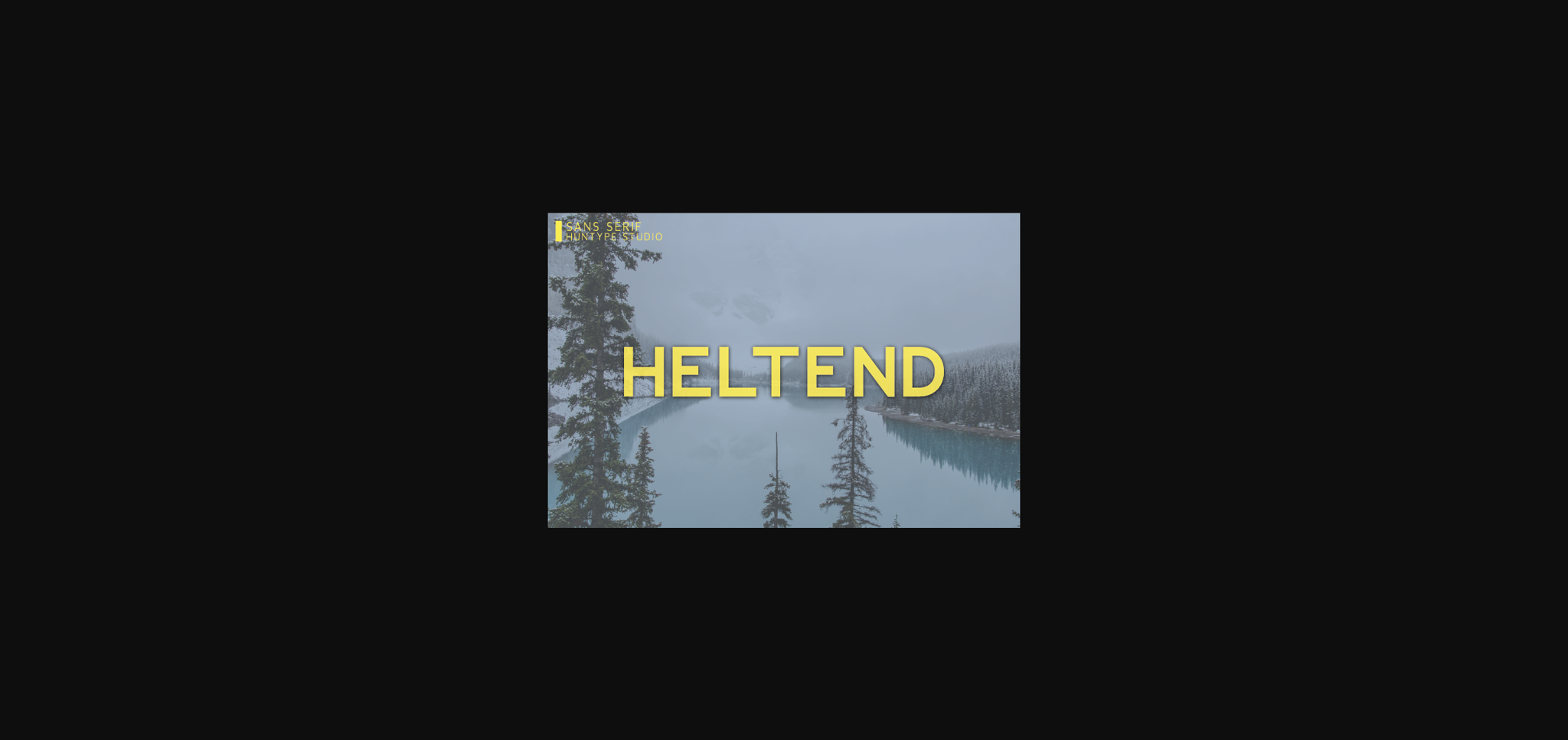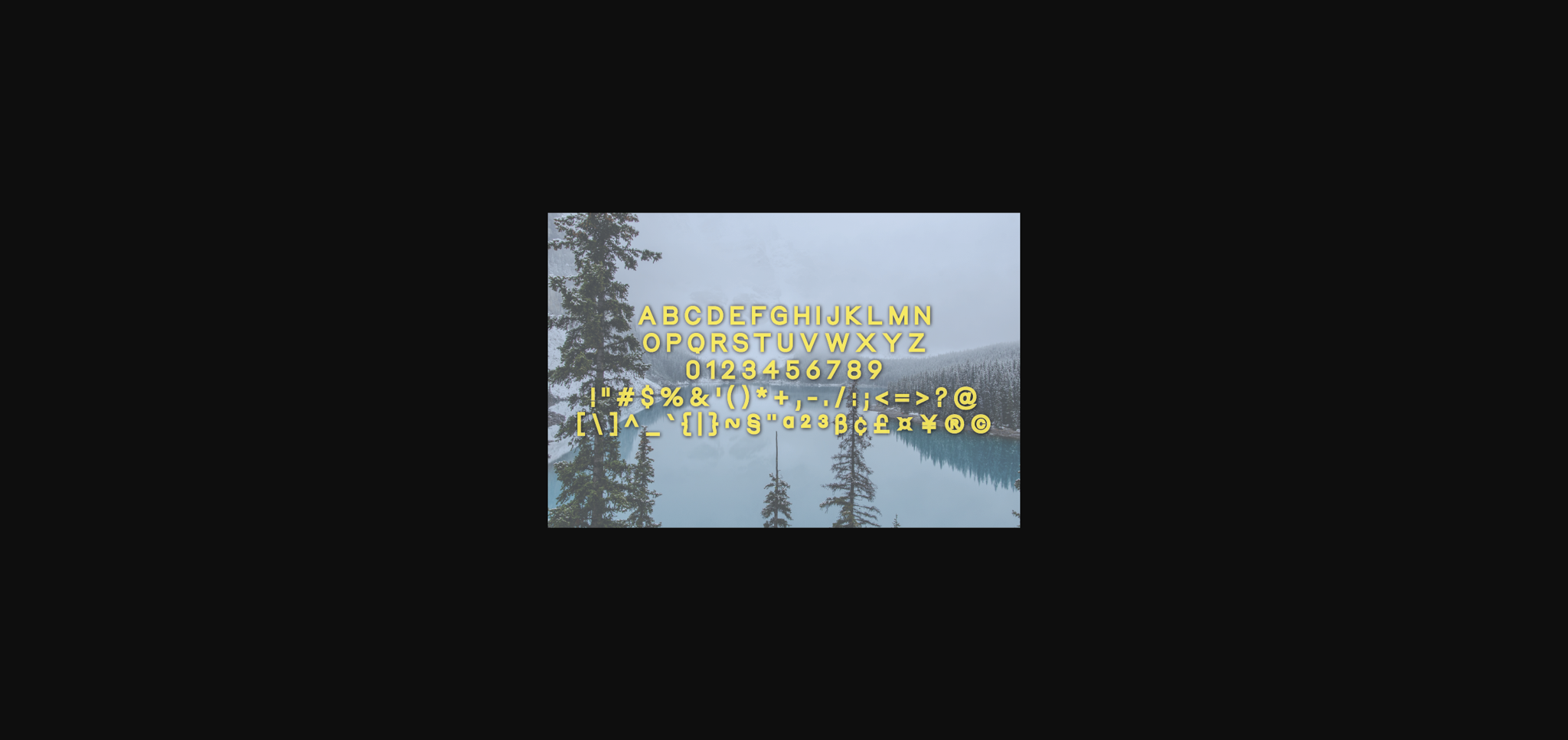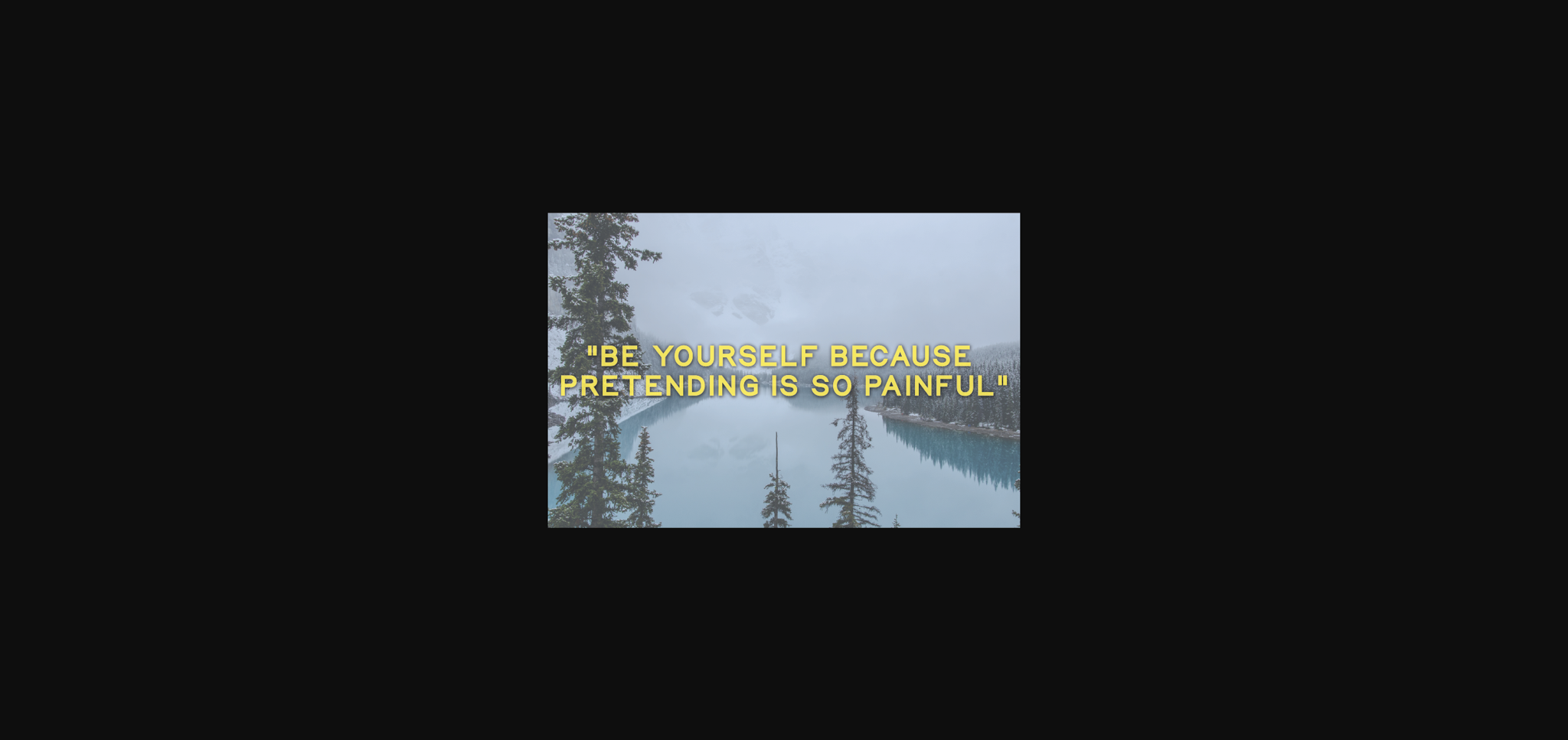
Heltend is a simple and thick lettered sans serif font. It works beautifully for logos, branding, and web headings. Add it confidently to your projects, and you won’t be disappointed.